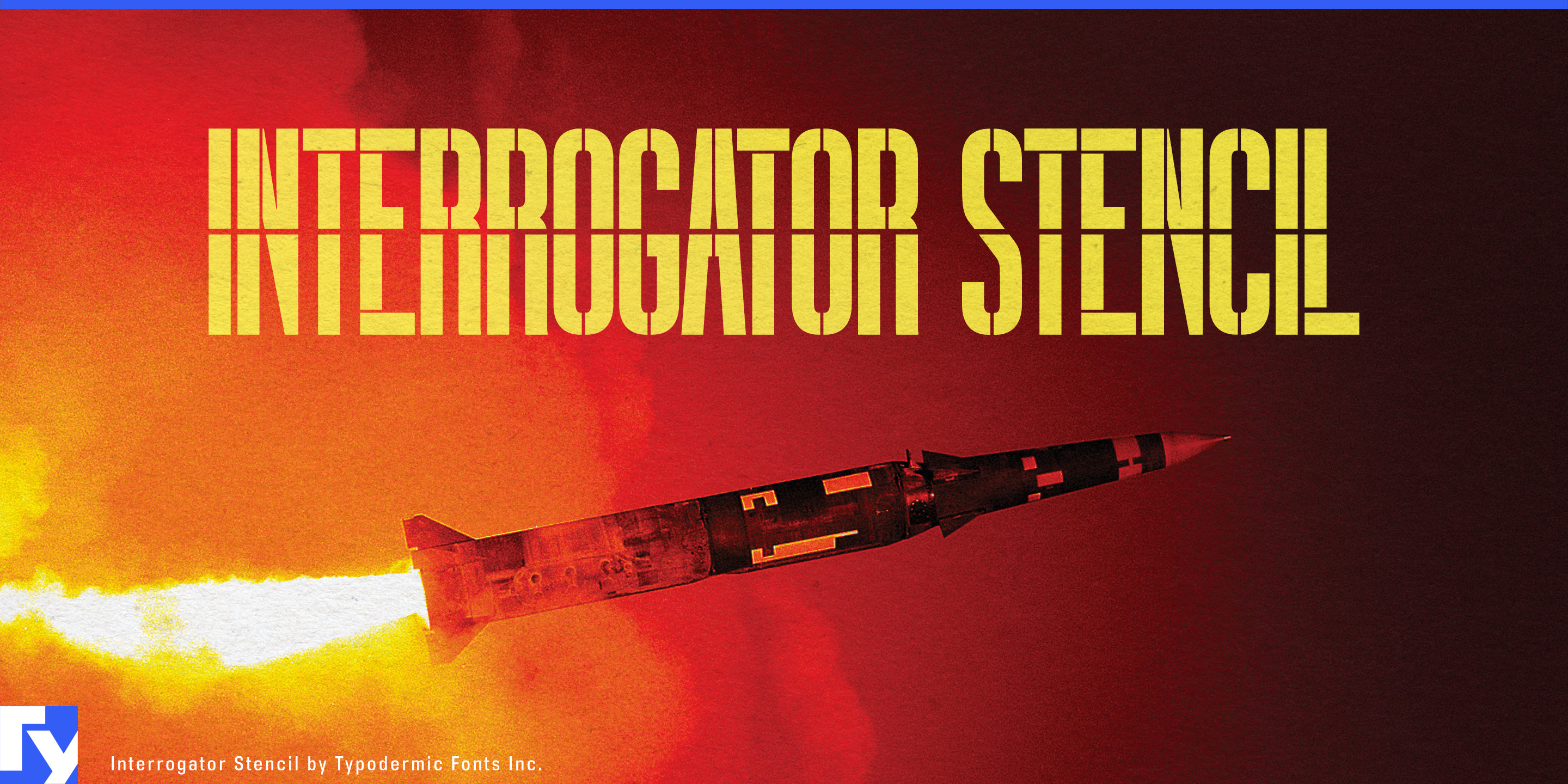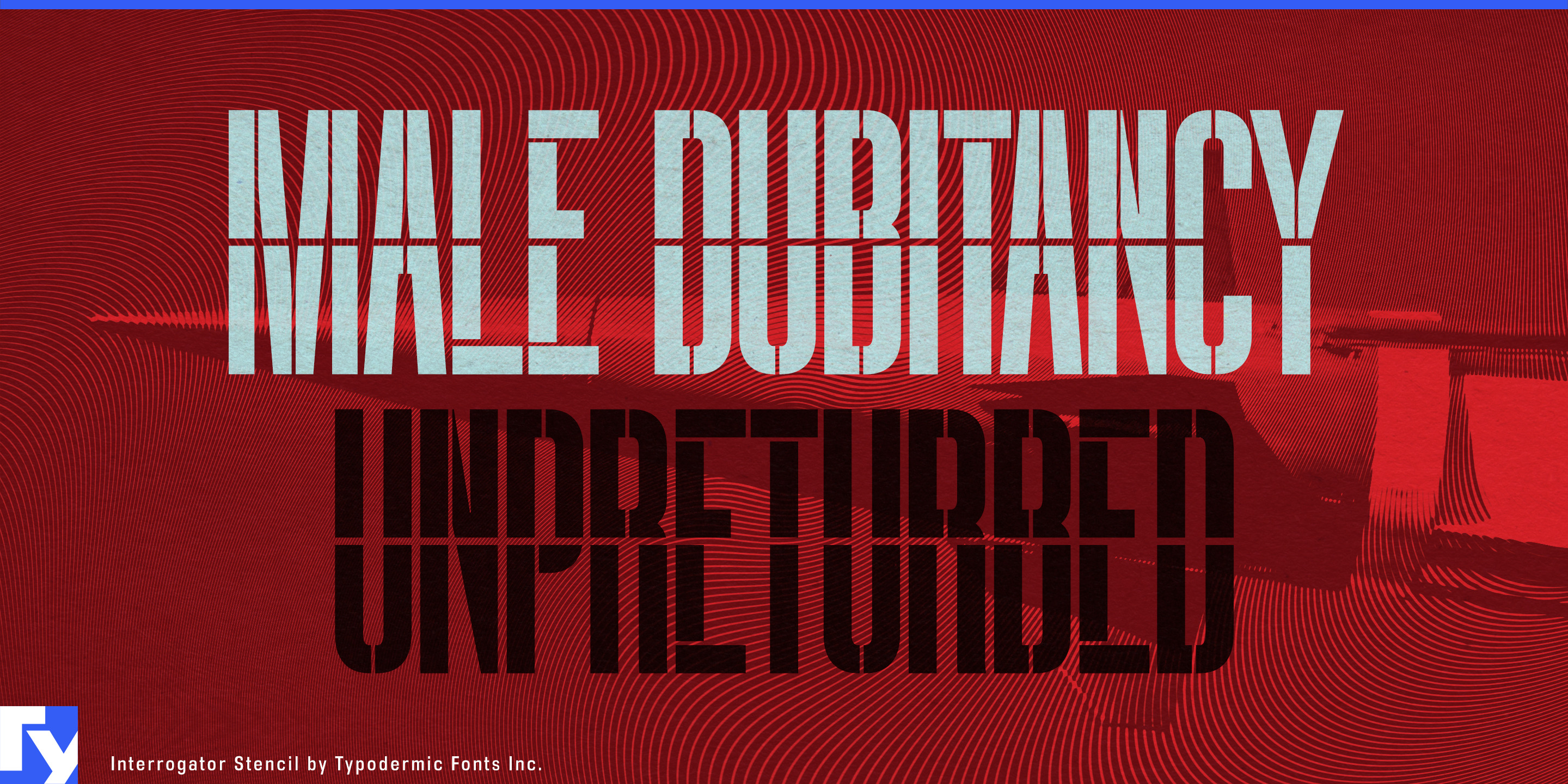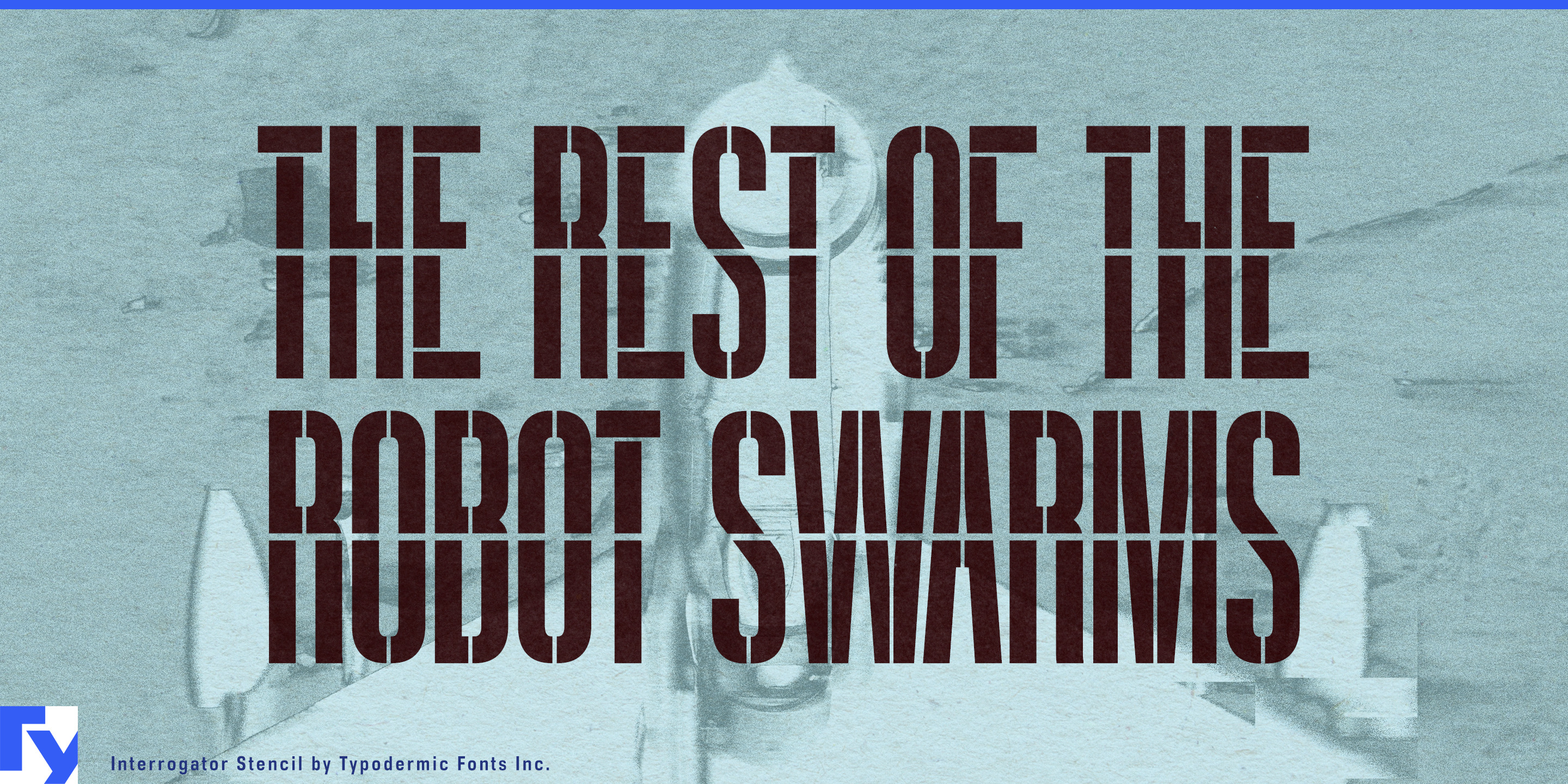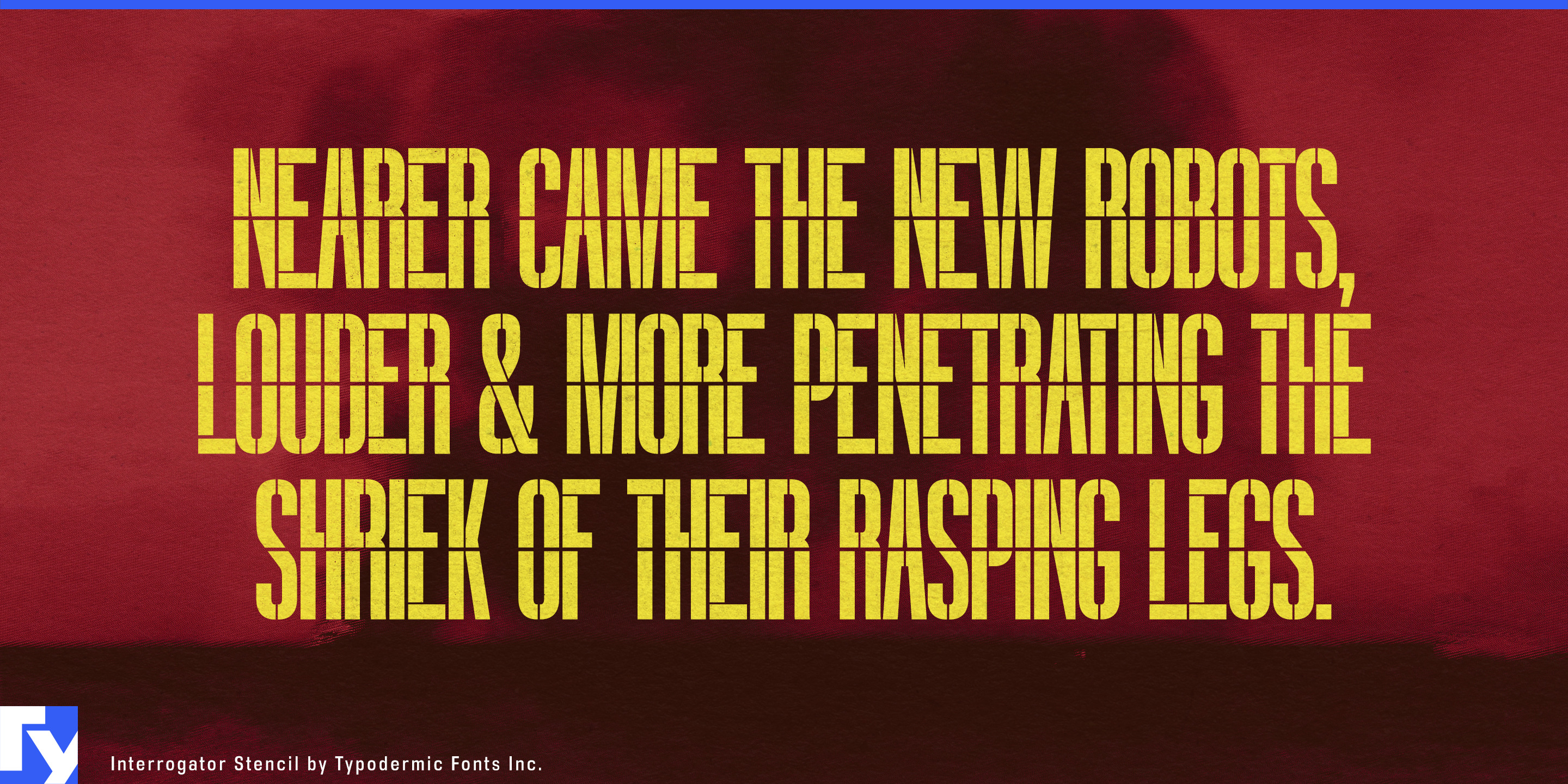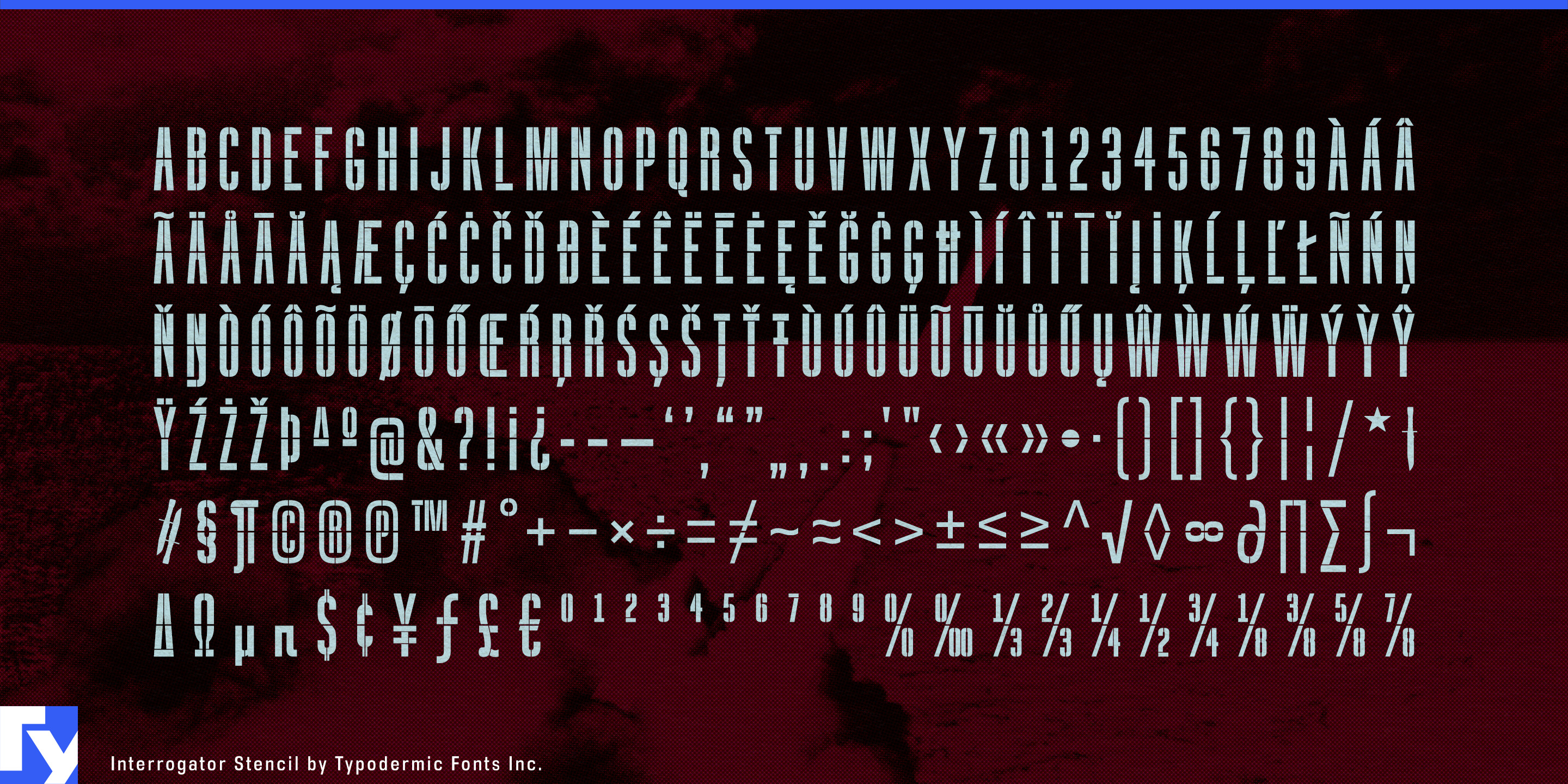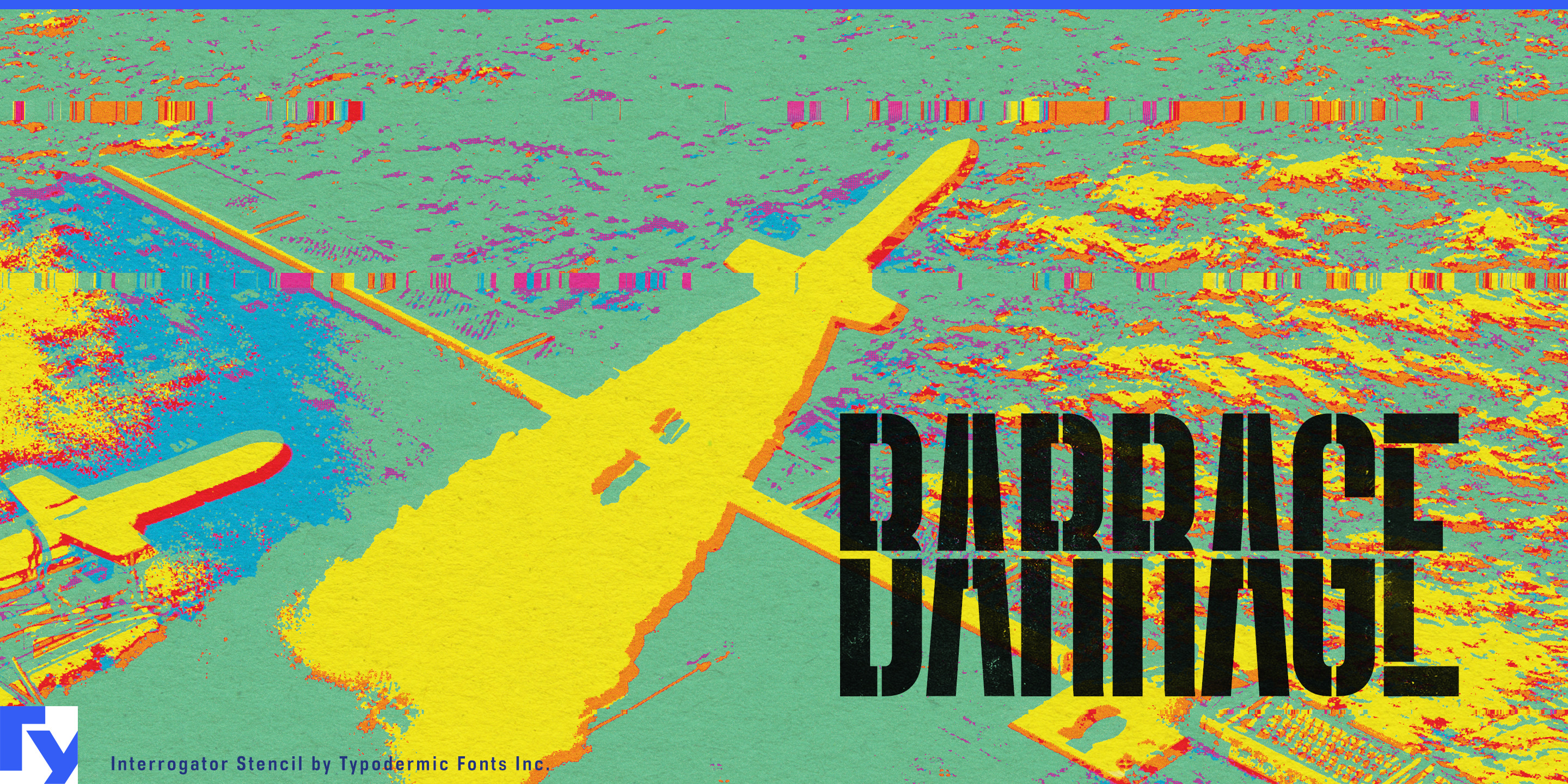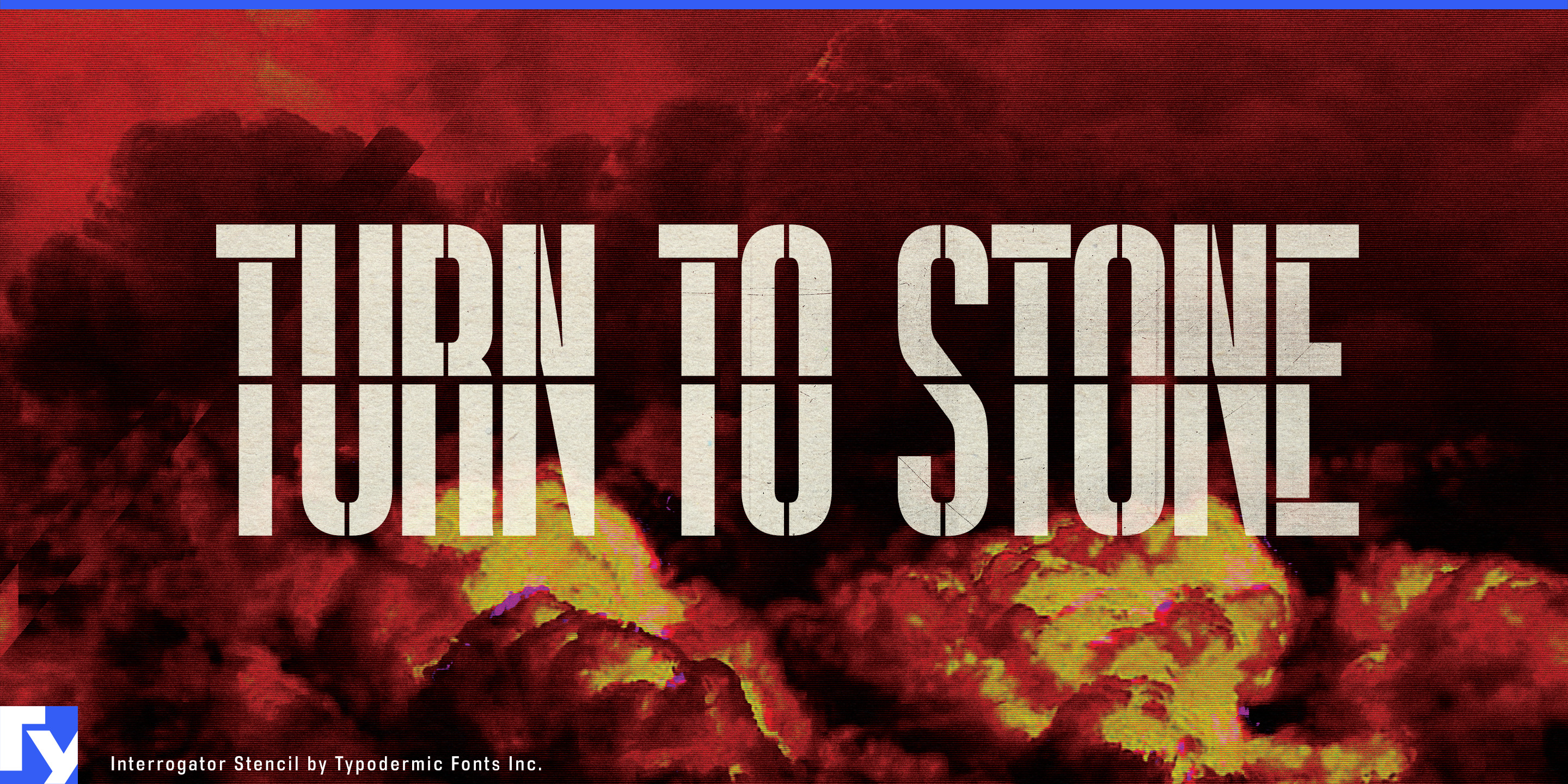
Interrogator Stencil
Interrogator Stencil isn’t just a military throwback—it’s a precision instrument for visual impact. Its bold crosshair struts slice each letter with calculated intent, while the thick horizontal strut drives the reader’s eye forward like a tracer round. The result is a typeface that conveys motion, momentum, and purpose in every line.
Originally inspired by the sharp, weapon-heavy title screens of 1980s Famicom games, Interrogator Stencil brings that retro command-center energy into the modern design arena. But its reach goes far beyond the battlefield. Those crosshair divisions can suggest engineering accuracy, navigational clarity, or laser-focused messaging. The rhythm of its cut lines creates a built-in graphic motif—perfect for tying together brand identities, packaging systems, and high-impact campaigns. Use it to fuel the kinetic energy of sports branding, the futuristic edge of sci-fi posters, or the rugged authority of outdoor gear packaging. Set it large for billboard dominance or in all caps for editorial headlines that refuse to be ignored. With support for a wide range of Latin-based languages, Interrogator Stencil is equipped for global deployment.
When you need a font that hits the target—whether that target is a gamer’s nostalgia, a cyclist’s adrenaline, or a navigator’s coordinates—lock on with Interrogator Stencil.